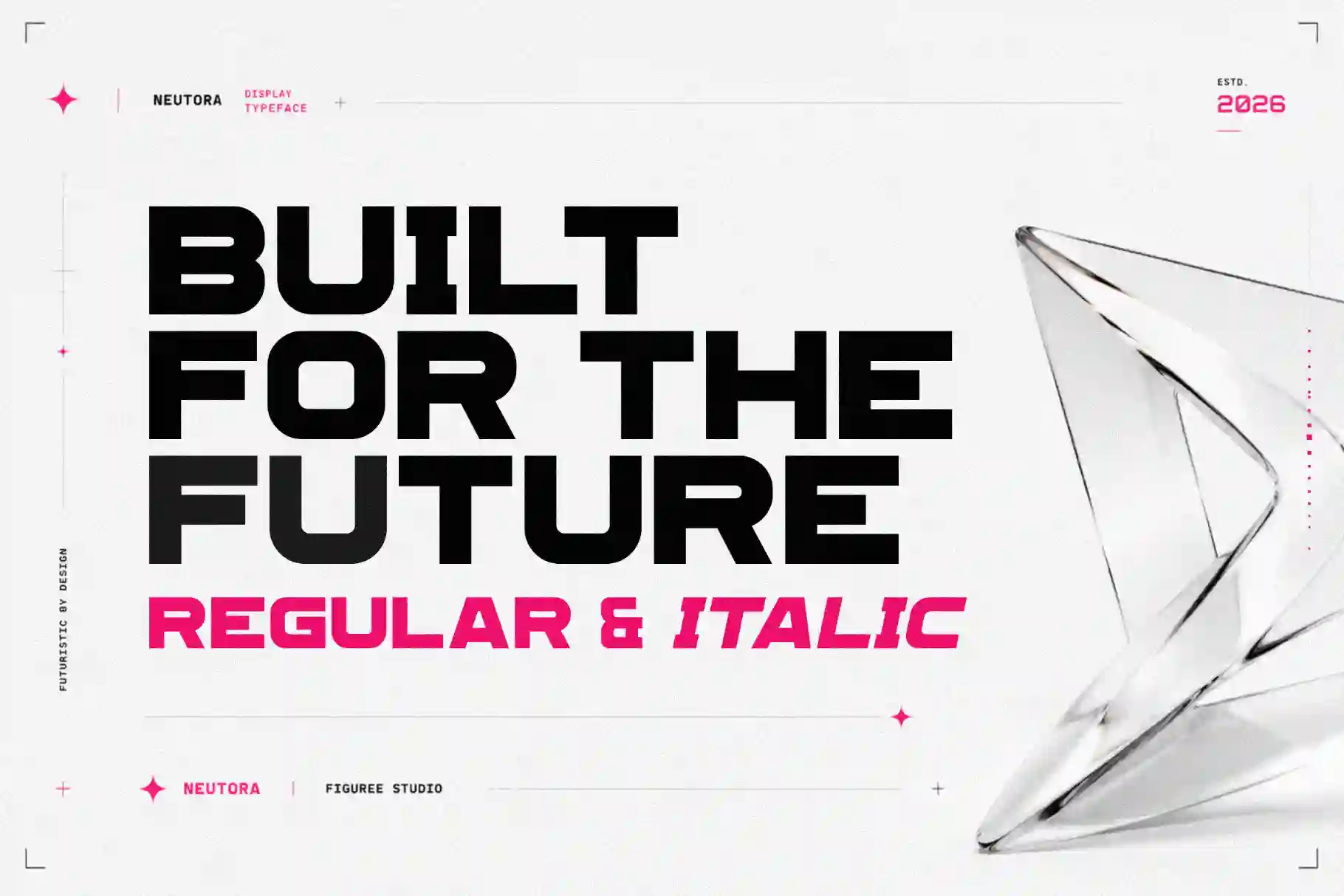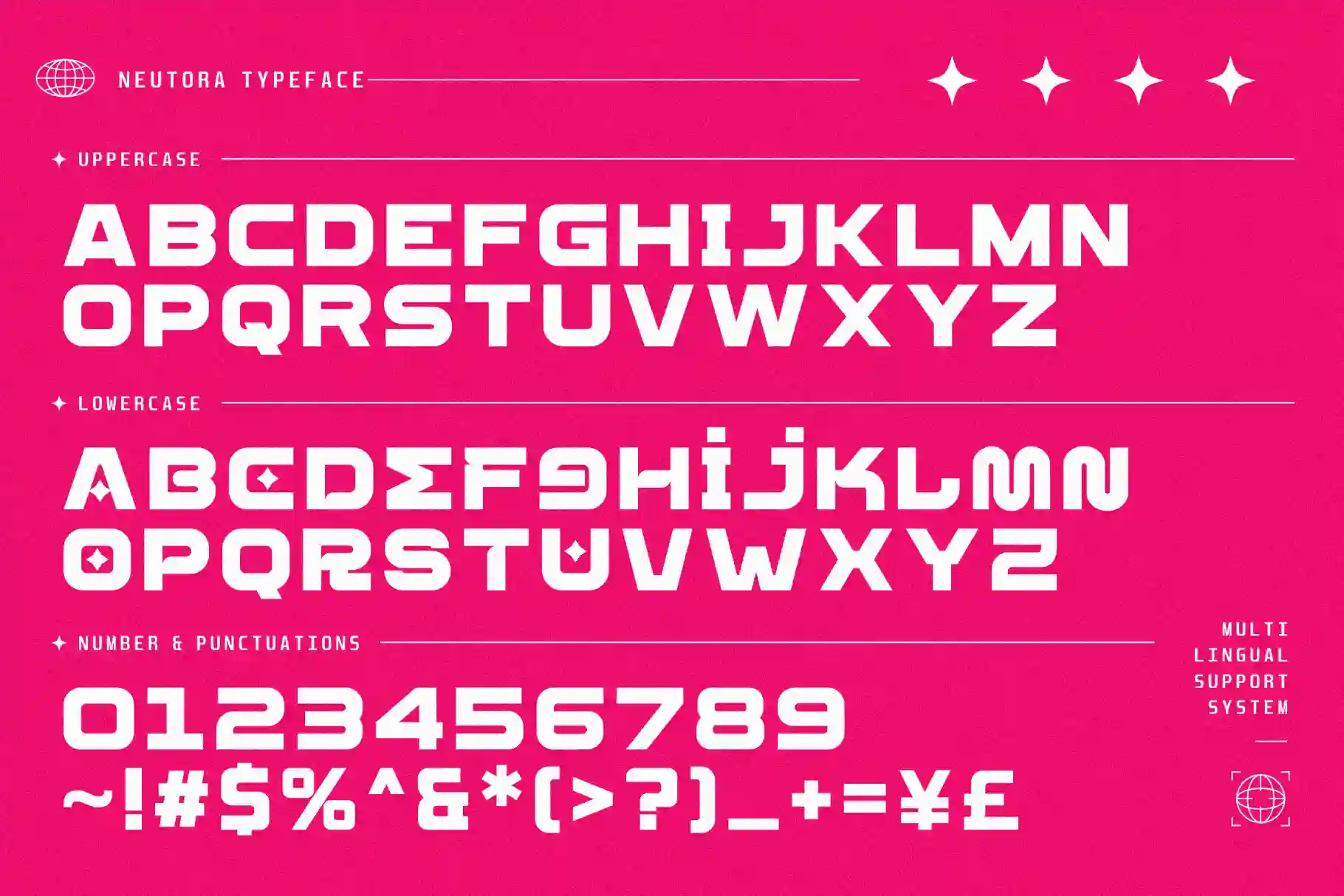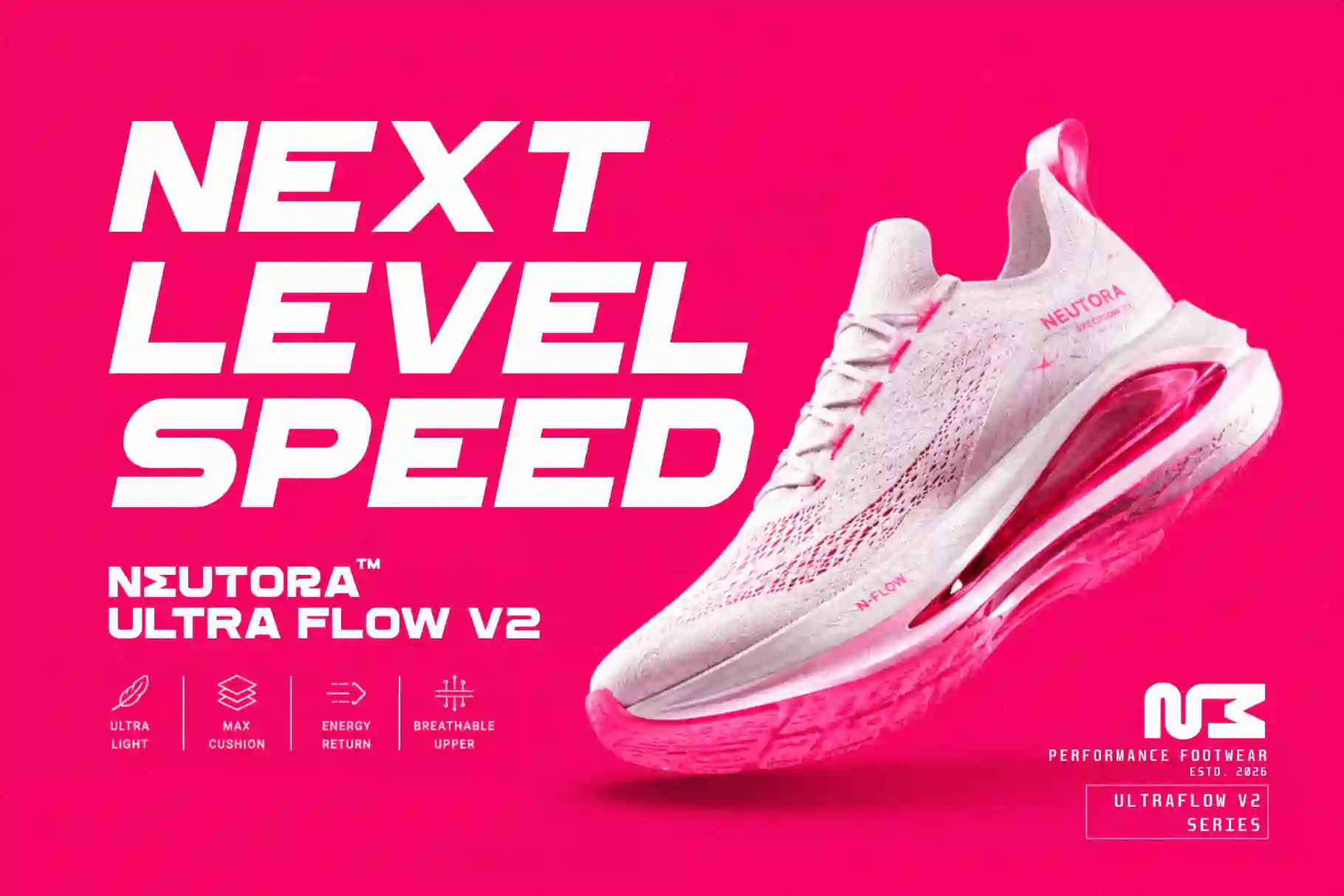
Neutora – Bold Futuristic Font for Modern Visionary Design
If you are searching for a bold futuristic font that instantly gives your project a modern, high-tech, and powerful identity, then Neutora – Bold Futuristic Font is exactly what you need. Designed with sharp geometry, sleek curves, and dynamic futuristic energy, Neutora is crafted for designers who want to create bold visuals that feel innovative and ahead of their time.
This bold futuristic font is perfect for logos, gaming visuals, esports branding, posters, music covers, tech campaigns, UI design, automotive projects, and cinematic titles. Whether you are building a futuristic brand identity or designing an impactful headline, Neutora delivers strong visual authority with clean readability.
Bold Futuristic Font with Modern Geometric Style
Neutora is built with precision. Every character in this bold futuristic font is carefully designed to create balance between modern minimalism and cyber-inspired aesthetics. The result is a font that feels aggressive yet clean, futuristic yet professional.
Its geometric structure creates a strong visual rhythm, making it ideal for headlines and branding projects that require attention. Unlike generic sci-fi fonts, Neutora keeps readability intact while still delivering a futuristic personality.
The combination of bold weight and italic variation gives designers even more flexibility. Use the regular style for strong branding, and switch to italic when you want to emphasize movement, speed, and digital energy.
Why Neutora is the Perfect Bold Futuristic Font
Modern branding demands fonts that are memorable and visually distinctive. Neutora answers that challenge perfectly. This bold futuristic font helps your projects look modern, premium, and innovative without sacrificing usability.
Designers love Neutora because it works across multiple industries, including:
- Gaming and esports branding
- Tech startup identity
- Music posters and album covers
- Automotive and racing visuals
- Digital campaigns and social media
- Movie titles and cinematic posters
- UI/UX and futuristic interfaces
Whether used in large-scale headlines or compact logos, Neutora maintains a strong futuristic character.
Key Features of Neutora – Bold Futuristic Font
Neutora comes packed with professional features that make it versatile for both print and digital projects.
- Uppercase & Lowercase
- Numbers & Punctuations
- Multilingual Support
- Regular & Italic Version
- Clean Geometric Letterforms
- Modern Futuristic Design
- Perfect for Logos & Headlines
- Strong Readability for Digital Media
This bold futuristic font is designed for creators who need flexibility, performance, and style in one package.
Bold Futuristic Font for Gaming and Esports Branding
Gaming and esports demand visuals with energy and personality. Neutora is a bold futuristic font that fits perfectly into competitive and digital environments.
Its sharp structure and extended futuristic styling make it ideal for gaming logos, team identities, Twitch overlays, YouTube thumbnails, and tournament graphics. The italic version adds an extra sense of speed and movement, making every composition feel more dynamic.
When paired with expressive brush fonts like Hyper Squad – Freestyle Brush Font or Roadpunks – Handbrush Typeface, Neutora creates a strong contrast between futuristic precision and raw expressive energy.
Bold Futuristic Font for Posters and Cinematic Titles
Movie posters and music visuals rely heavily on typography to create atmosphere. Neutora is a bold futuristic font that instantly adds cinematic intensity to any design.
Its futuristic geometry works exceptionally well for sci-fi movie titles, cyberpunk aesthetics, digital music covers, and futuristic event promotions. Designers who want dramatic visuals with modern appeal will find Neutora incredibly versatile.
This article showcases how futuristic typography can completely transform visual storytelling.
Bold Futuristic Font for Fitness and Tech Branding
Strong typography plays an important role in fitness and technology branding. Neutora’s sharp and energetic appearance makes it an excellent bold futuristic font for fitness applications, gym promotions, modern tech startups, and digital products.
Its clean futuristic appearance helps brands communicate innovation, strength, and confidence. Pairing Neutora with a sans serif companion like Bolde – Powerful Sans Serif creates a powerful branding system with excellent hierarchy.
Why Designers Love Neutora
Professional designers choose Neutora because it combines futuristic style with practical usability. Many futuristic fonts look overly experimental and become difficult to read, but Neutora keeps everything balanced and functional.
Whether you are designing logos, gaming visuals, posters, tech branding, or cinematic titles, Neutora delivers a clean futuristic experience that feels powerful, modern, and unforgettable. Pair it with Hyper Squad, Roadpunks, or Bolde to unlock even more creative possibilities and build typography systems with real visual impact.